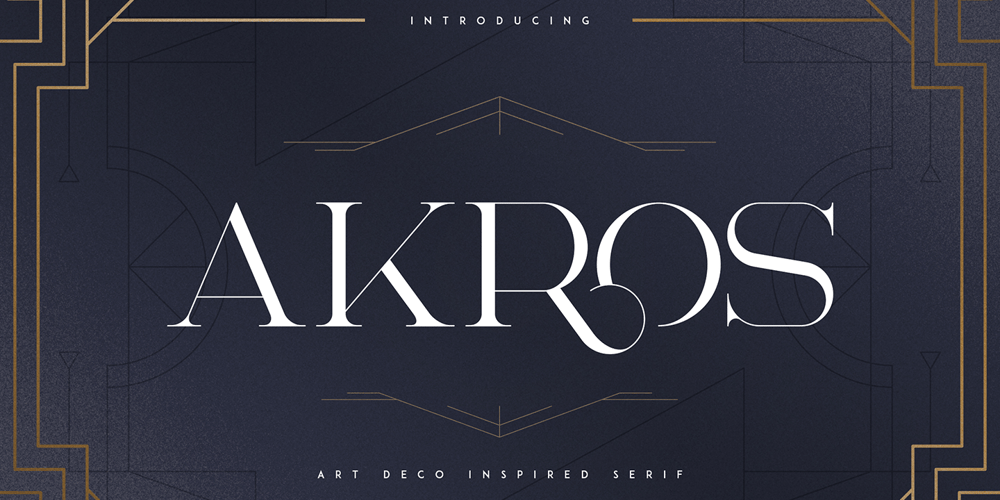
Akros
Akros font
Akros Font Family was designed by Vladimir Fedotov, Plamen Petrov and published by VP Creative Shop. Akros contains 1 styles and family package options. Introducing Akros – Art Deco Serif typefaceAkros is luxury, Art Deco inspired typeface with 4 weight, 51 ligature glyphs and multilingual support. It’s a very versatile font that works great in large and small sizes.Akros is perfect for branding projects, home-ware designs, product packaging, magazine headers – or simply as a stylish text overlay to any background image. Uppercase, numeral, punctuation & Symbol Light Regular Bold Black Ligatures Multilingual support Feel free to contact me if you have any questions!Mock ups and backgrounds used are not included.Thank you! Enjoy!